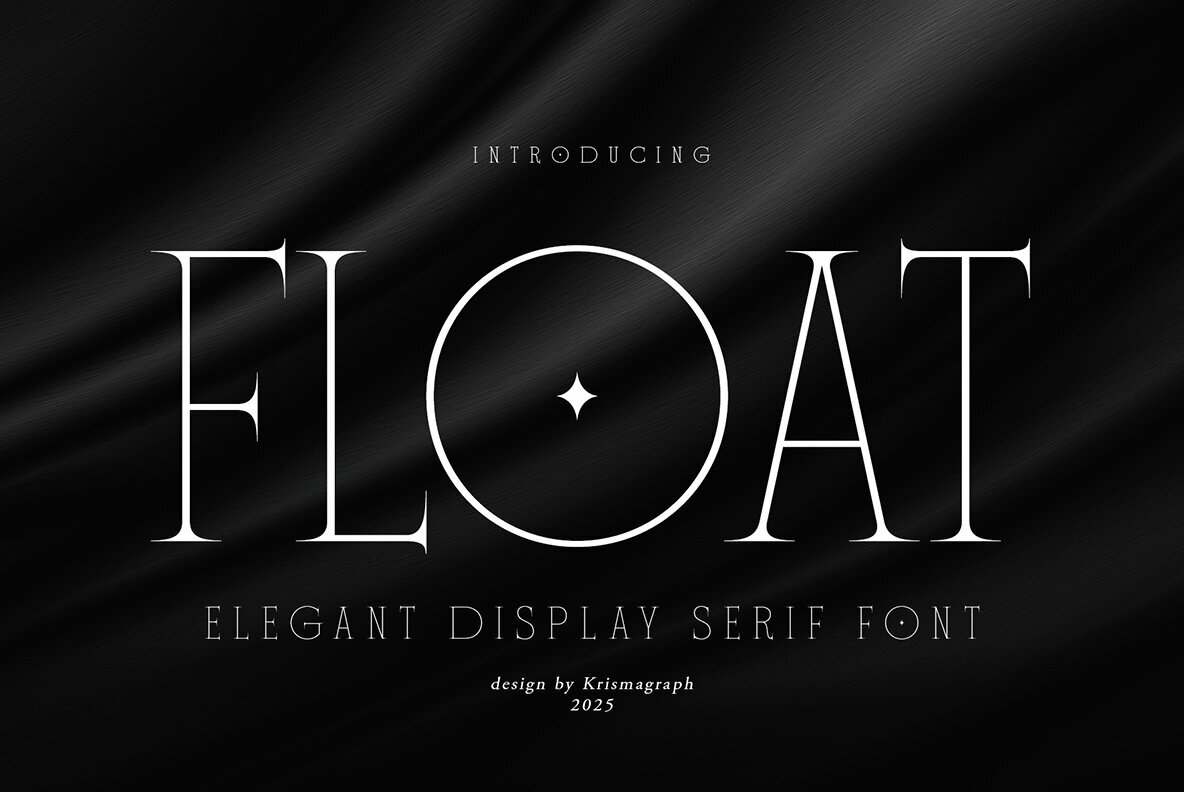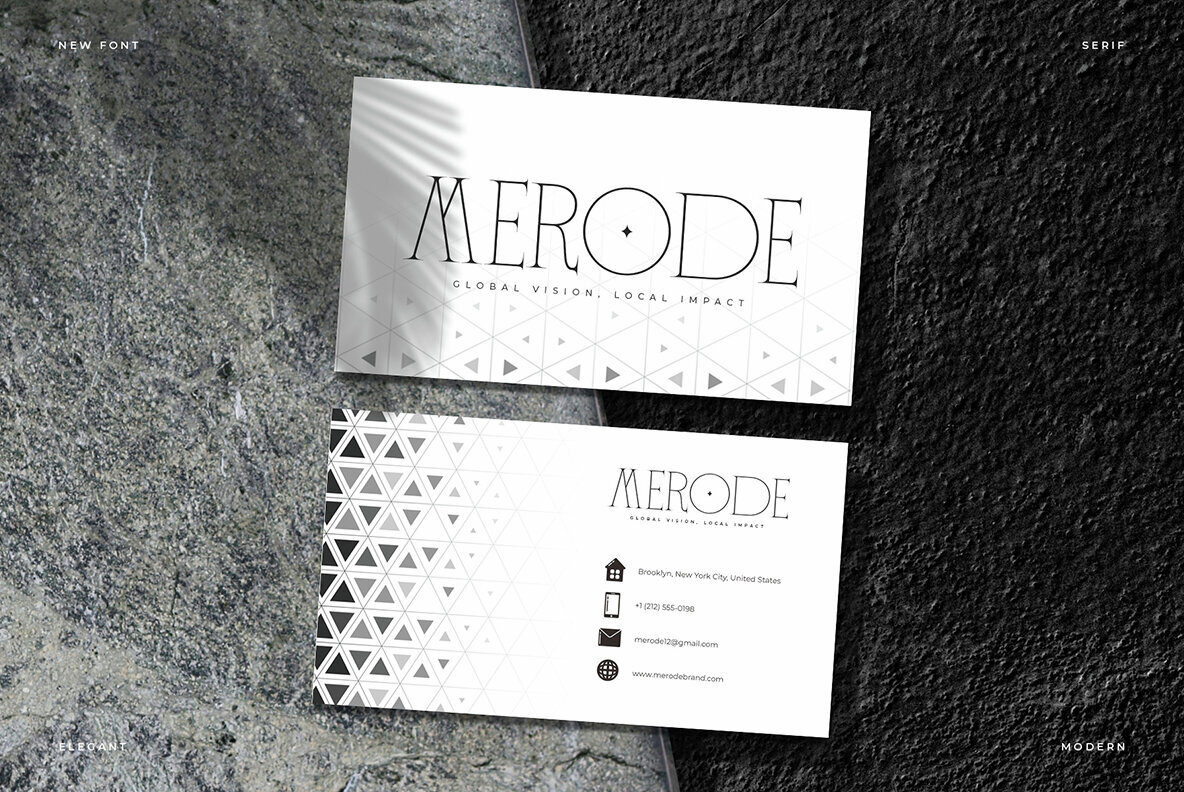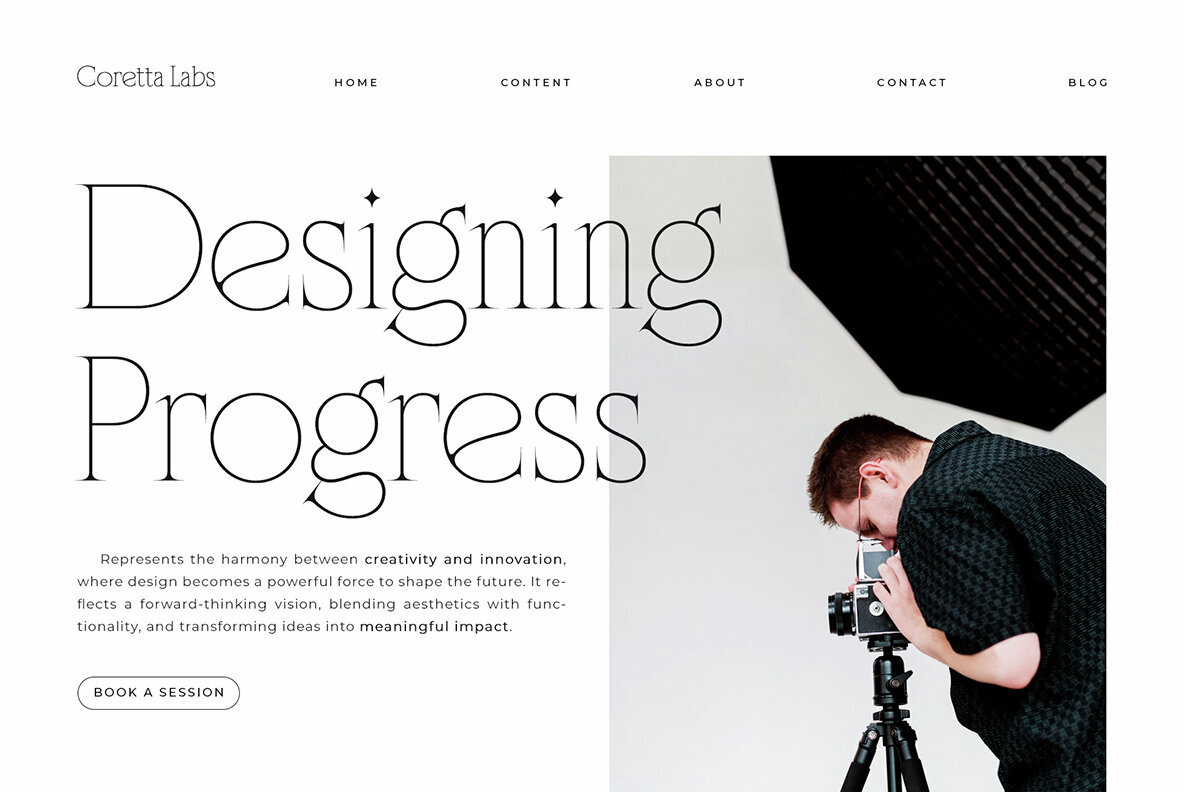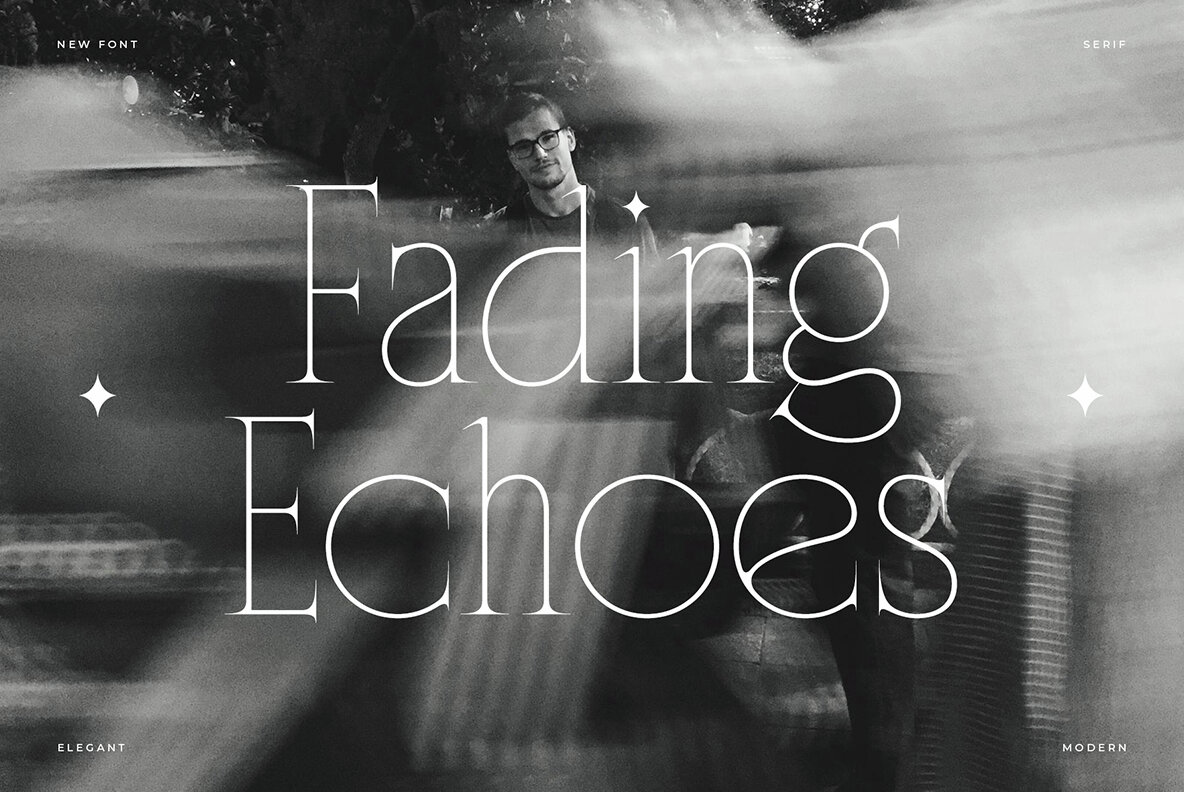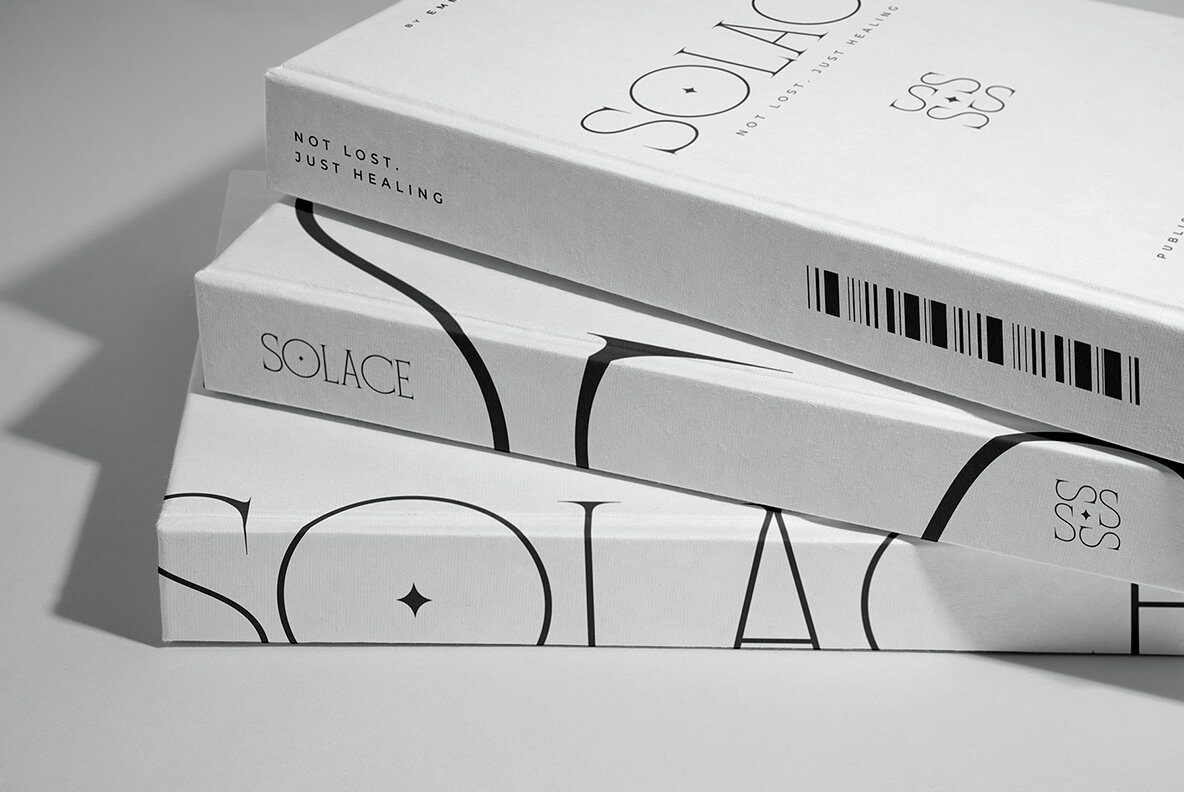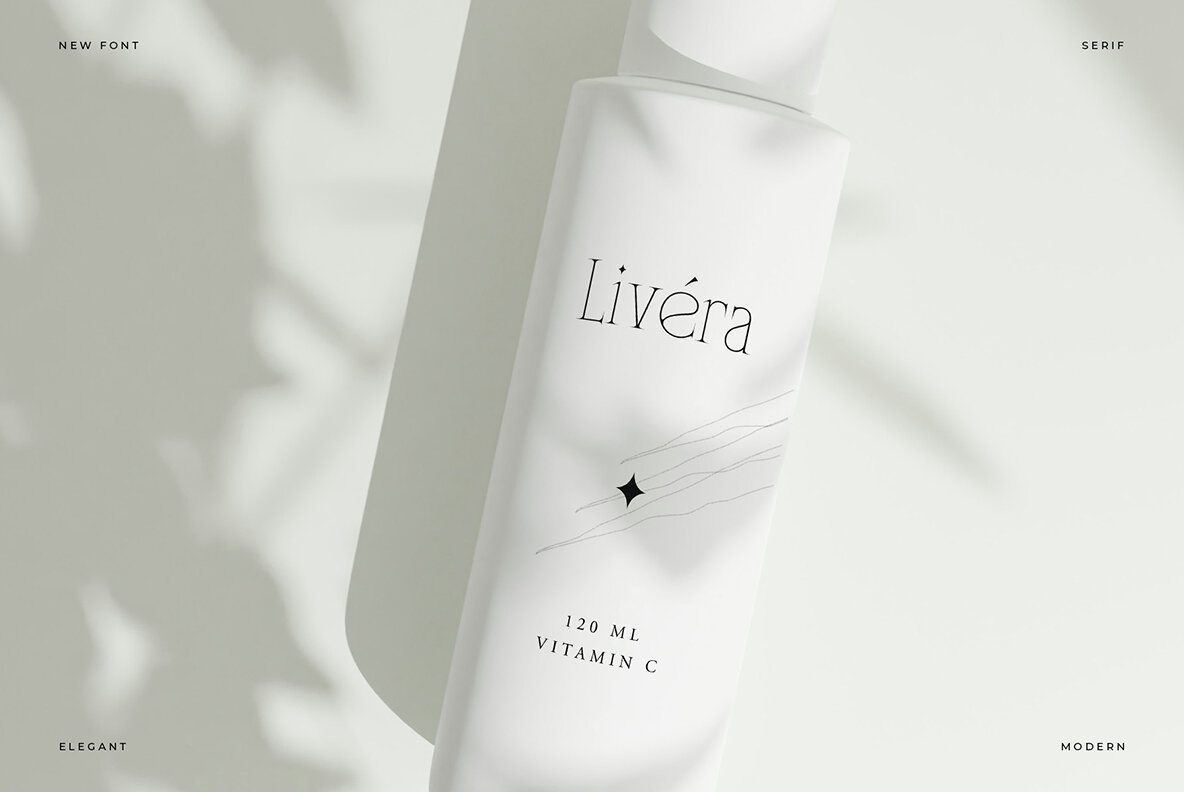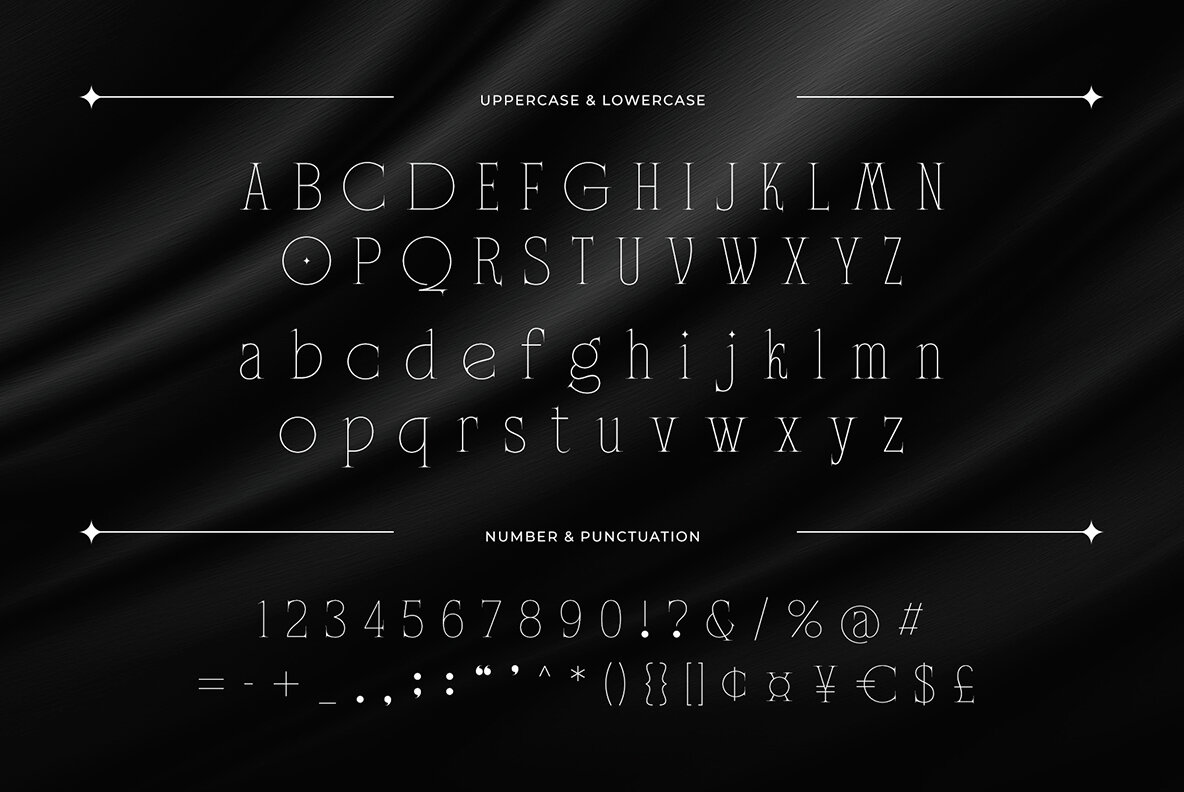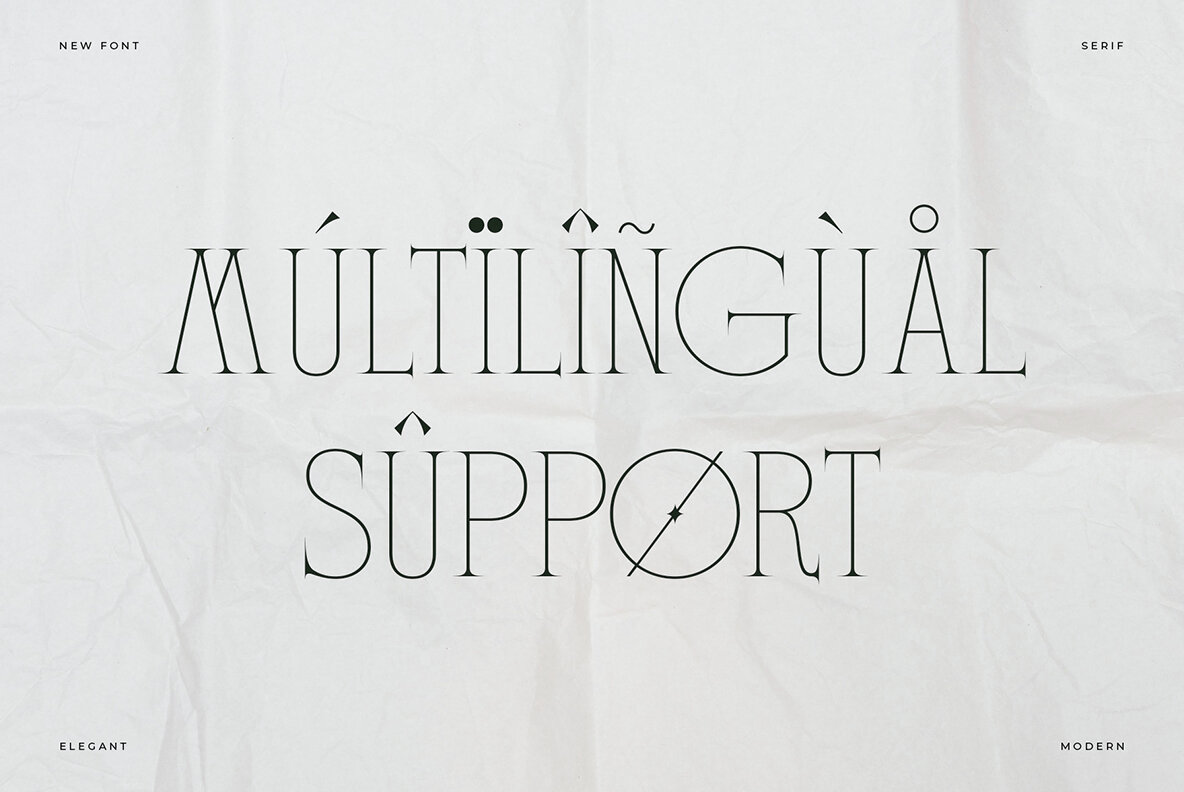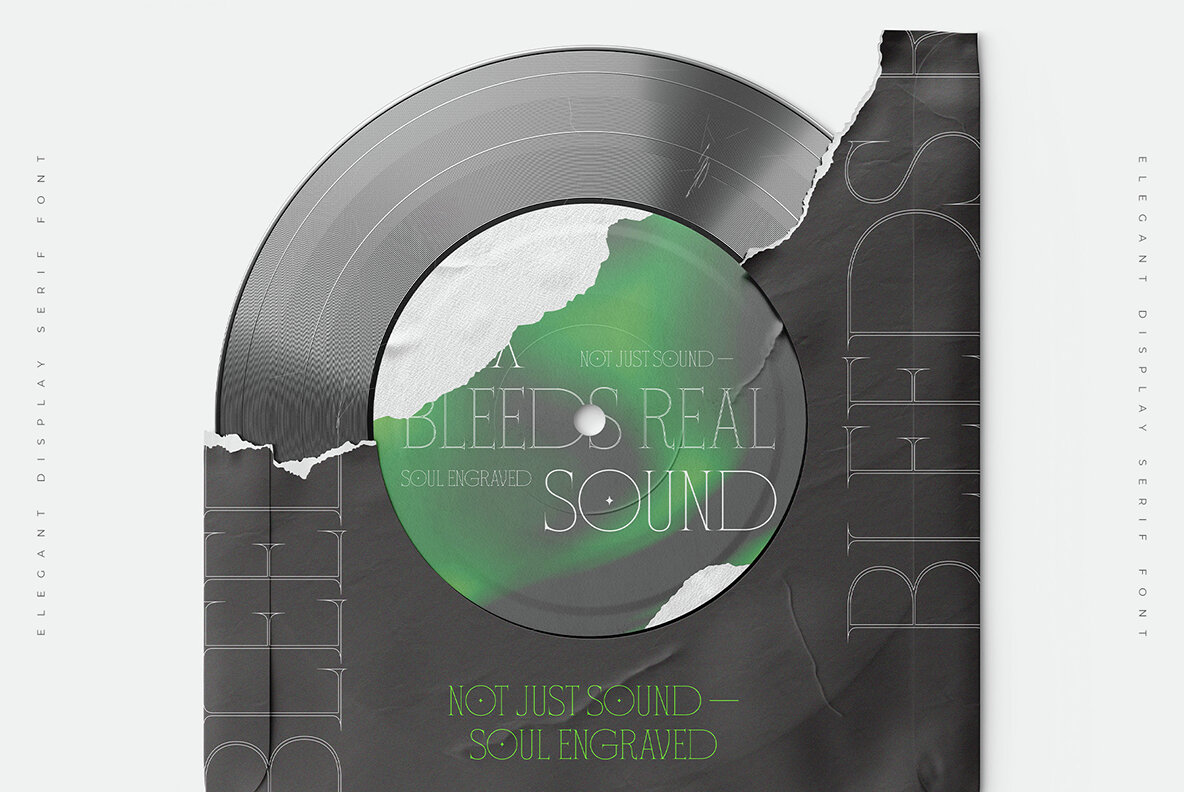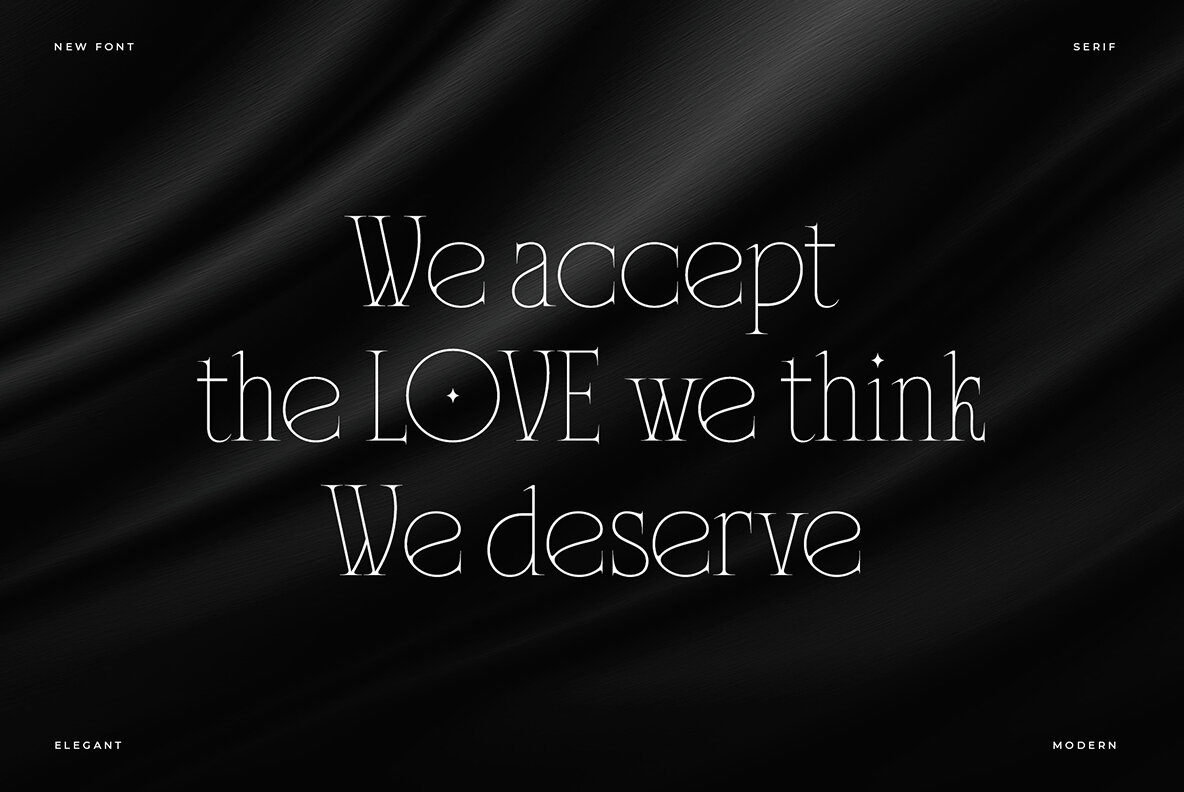
FLOAT Font
Float Serif Regular
Float redefines sophistication with its elegant display serif design, characterized by refined lines and sharp serifs. This luxurious typeface exudes a style that is both timeless and contemporary, making it ideal for modern brands and impactful headlines. Its tall letterforms and minimal yet striking details elevate upscale creative projects, offering versatility and elegance.Float: An Elegant Serif for Modern Brands